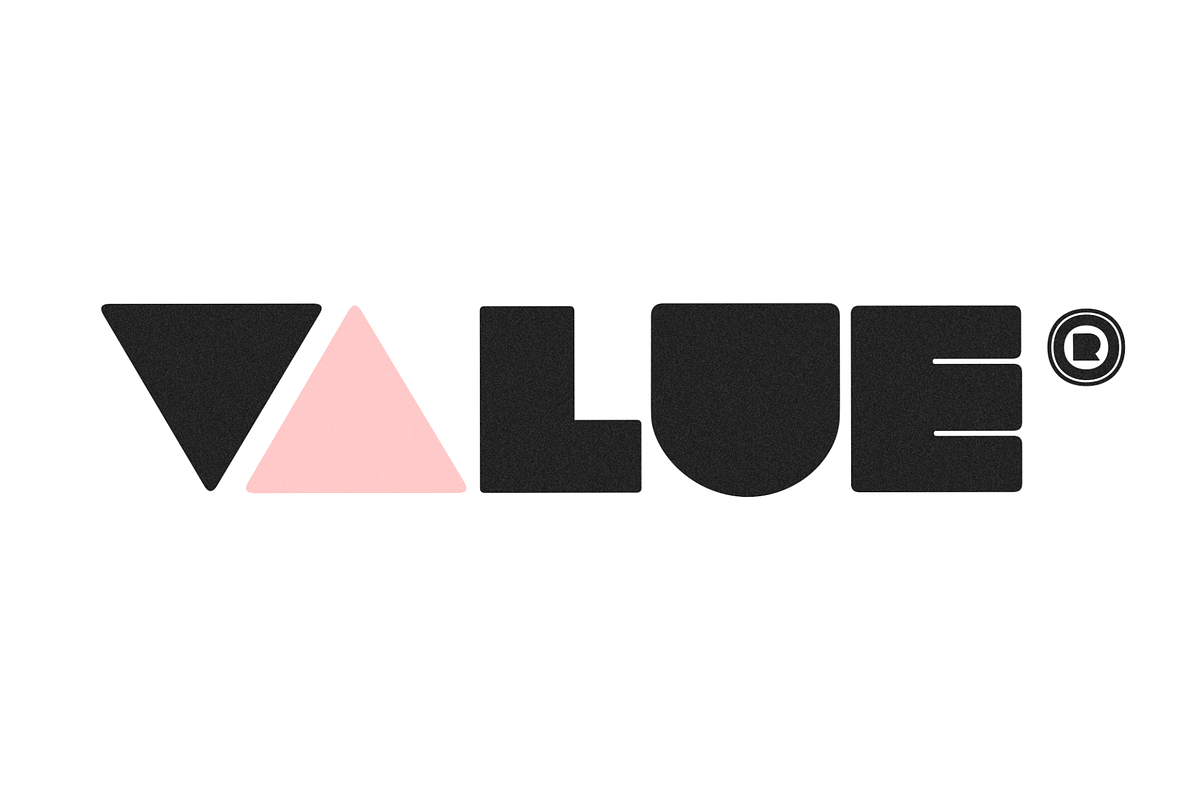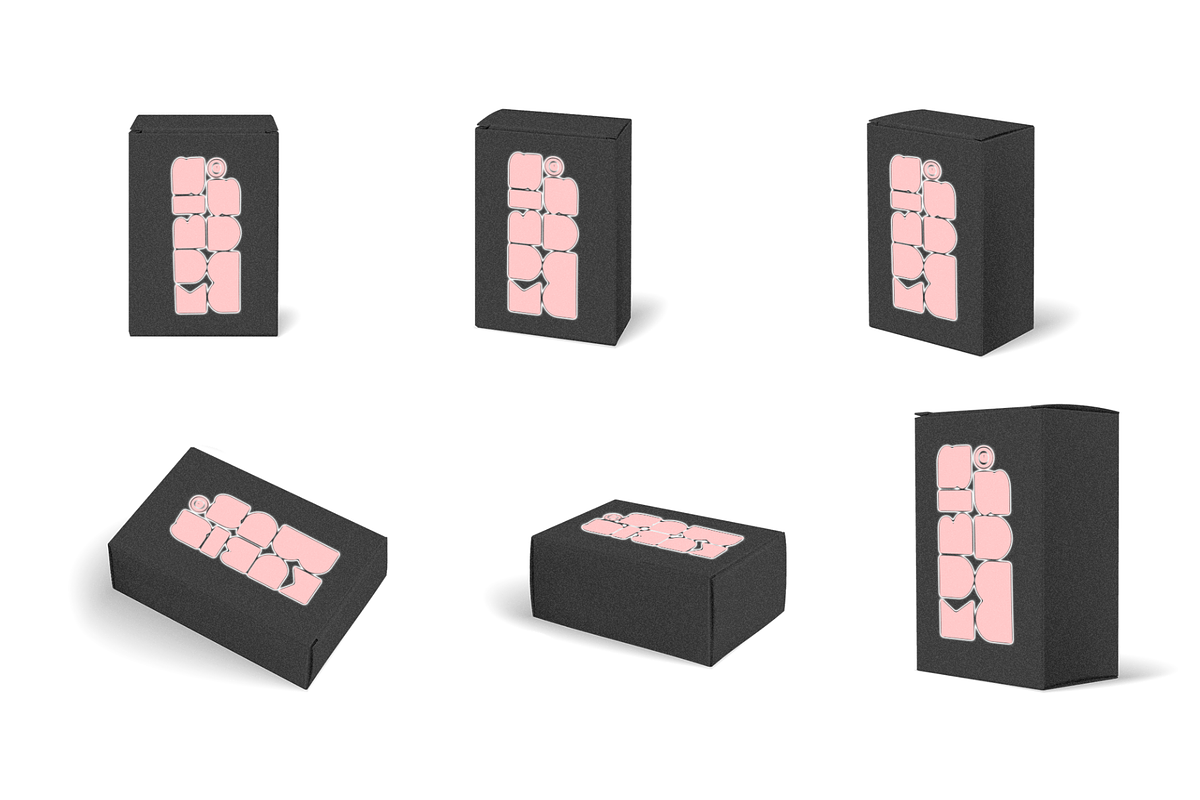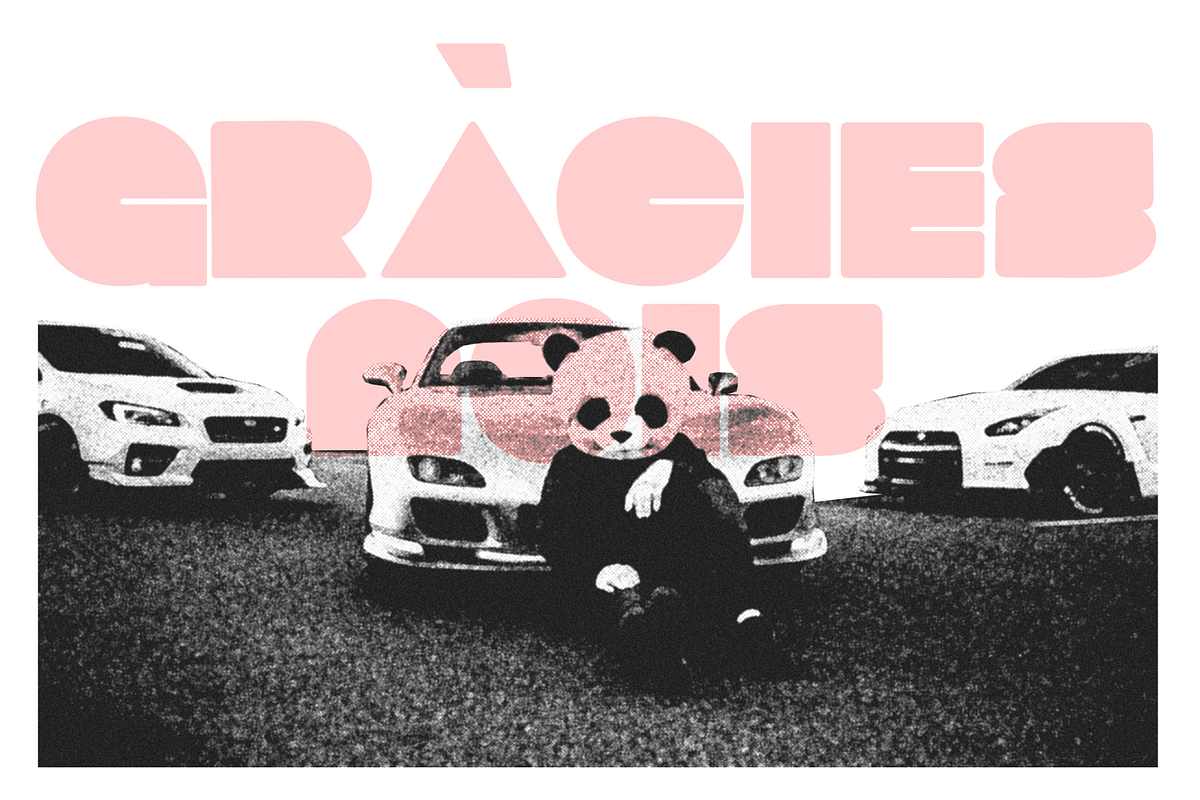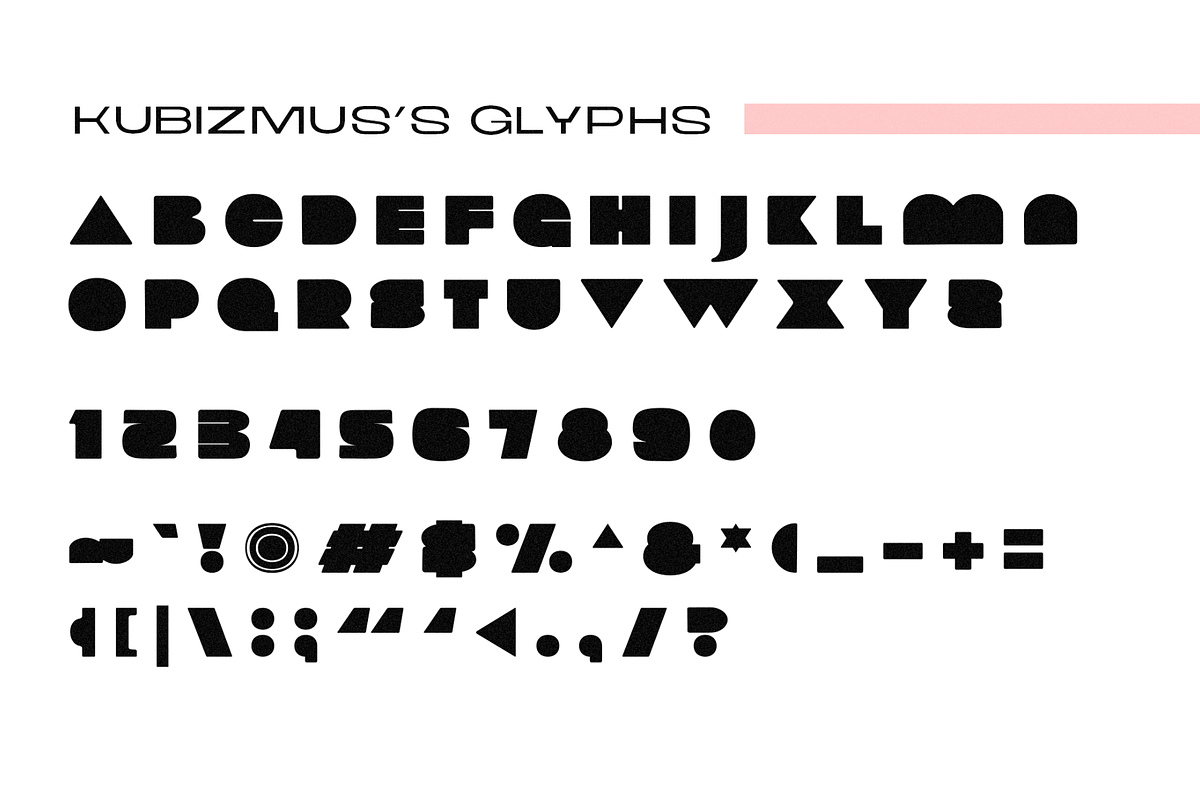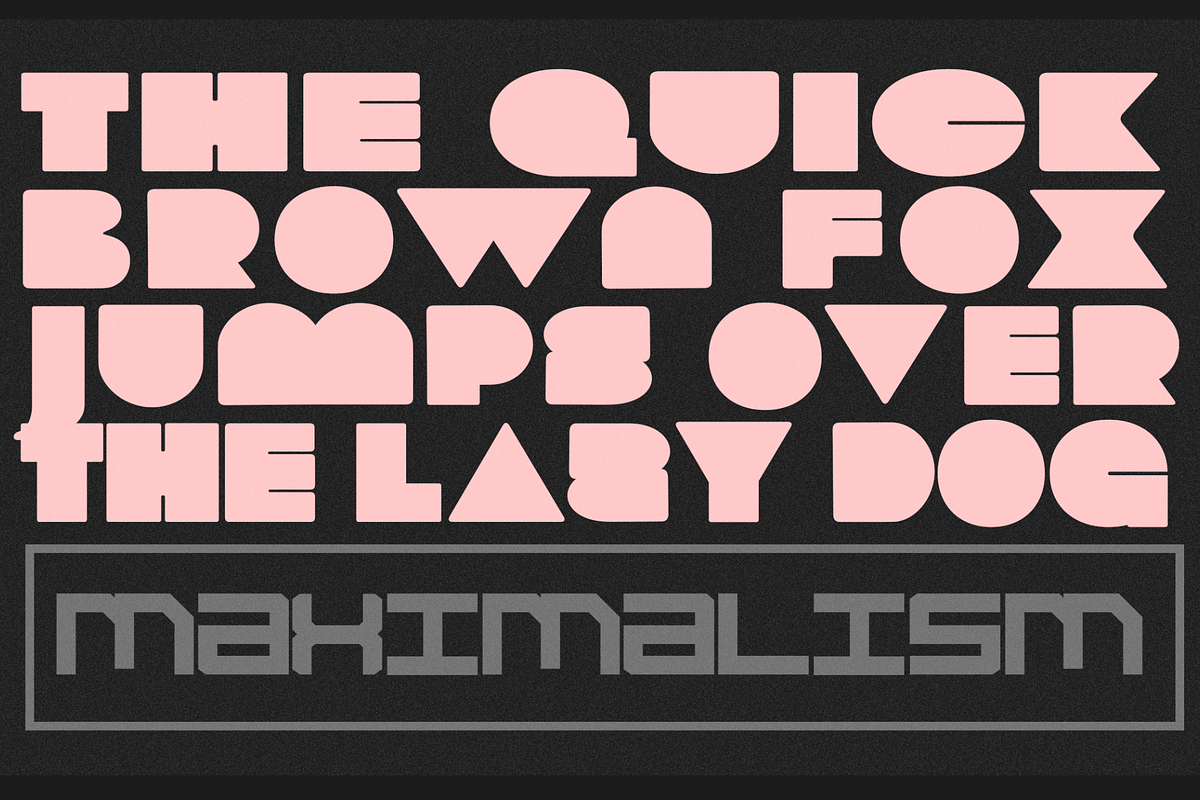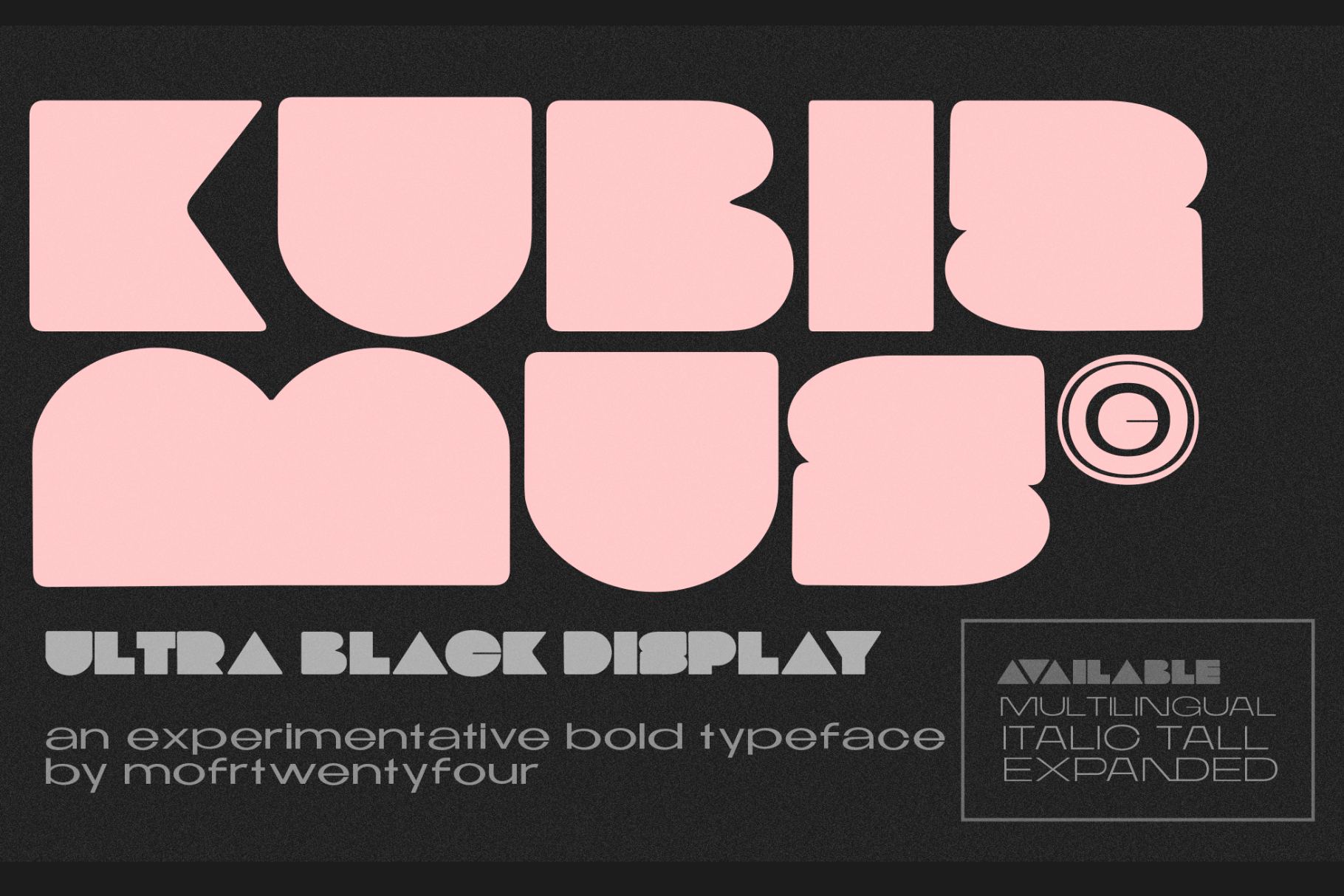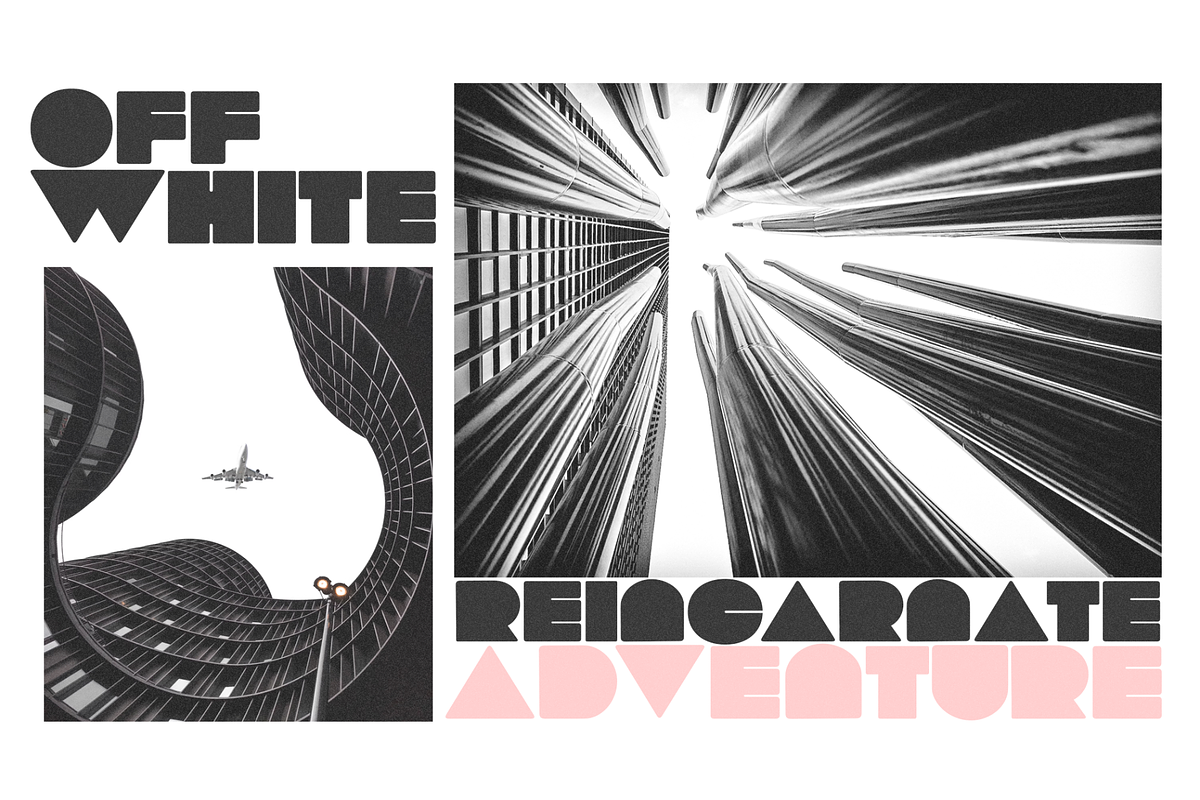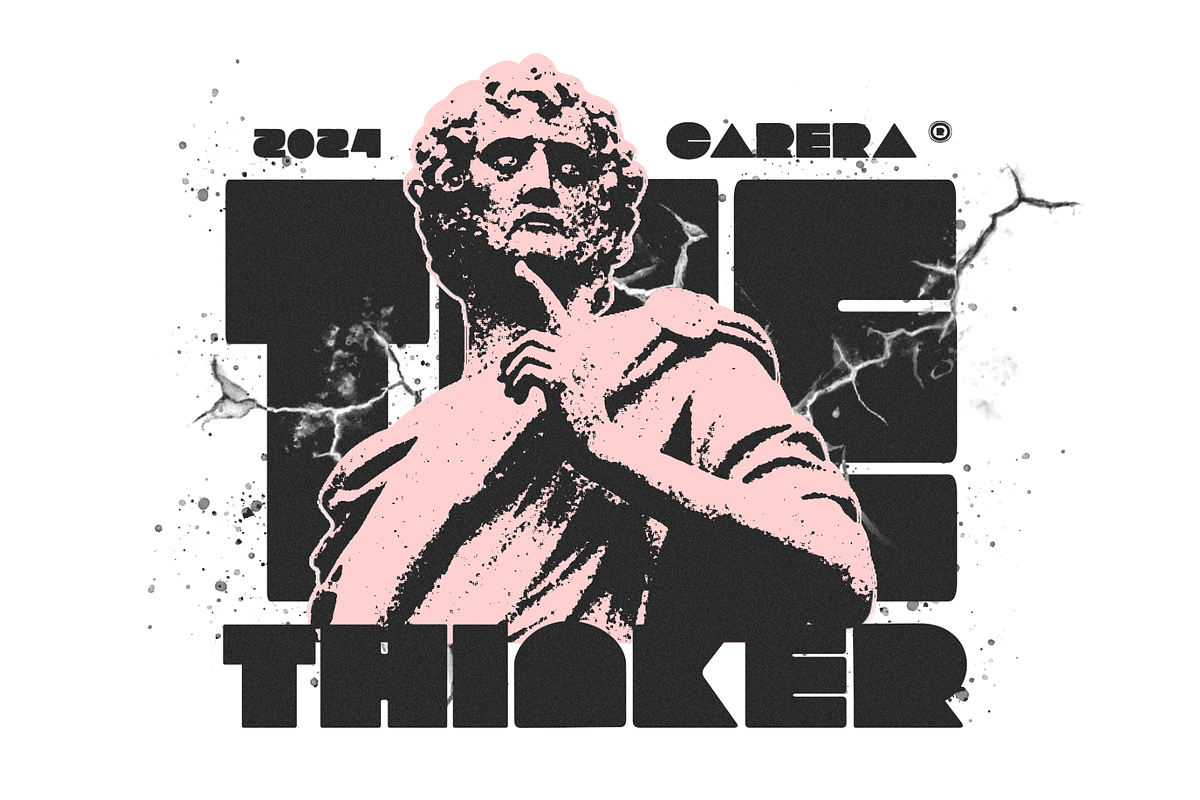
Kubizmus - Block Font
Assert your creative prowess with Kubizmus, a groundbreaking bold typeface that breaks the mold with its pronounced and original design. Its towering, broad characters make it the ideal selection for arresting brand identities, compelling magazine layouts, dynamic typography, vivid posters, striking thumbnails, and captivating T-shirt designs. Sporting more than 300 multilingual glyphs and encompassing italic styles, Kubizmus broadens your creative landscape, providing infinite flexibility for all your design endeavors. Choose Kubizmus, the quintessential typeface for designers seeking to induce a powerful visual impression.